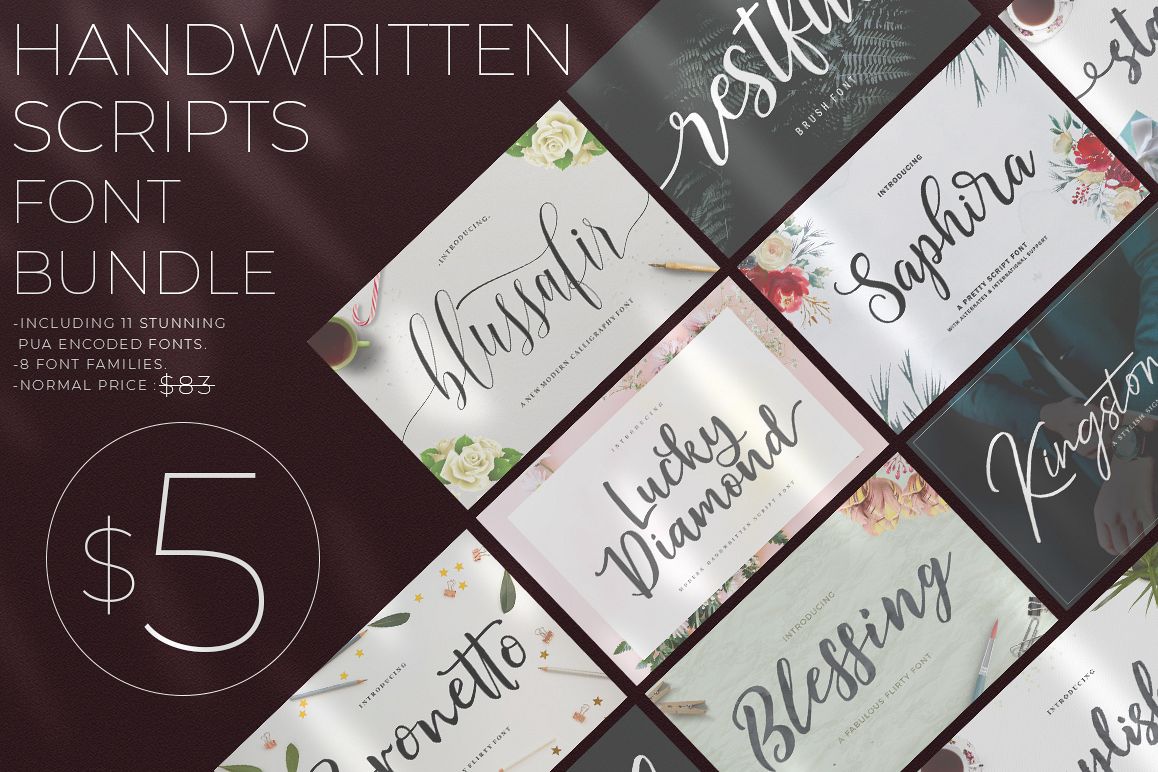
Handwritten Scripts Font Bundle From Great Studio
includes a variety of font styles such as calligraphy, signatures, letter
brushes, handwriting and more. with hundreds of glyphs, including alternatives,
ligatures, swash, and international language support.
Lucky Diamont Script
Blussafir Script
Saphira Script
Bronetto Script
Kingstoner Signatures
Restful Font
Staylisha Script
Blessing Script